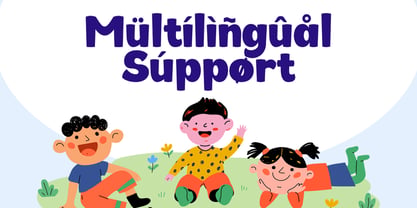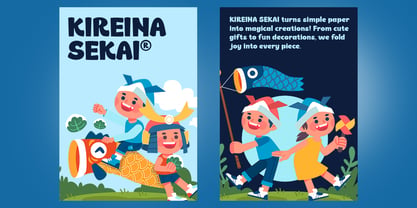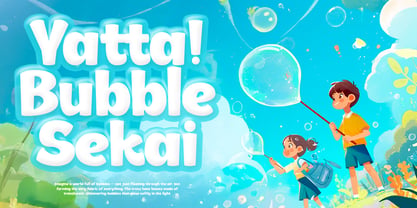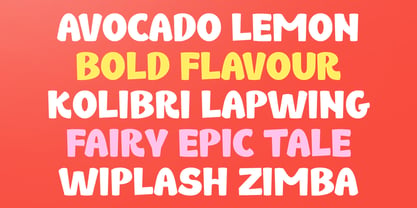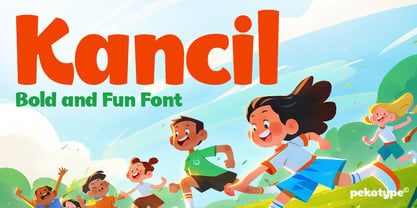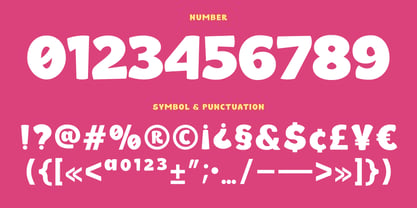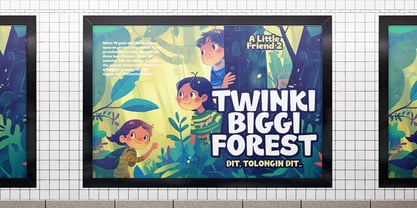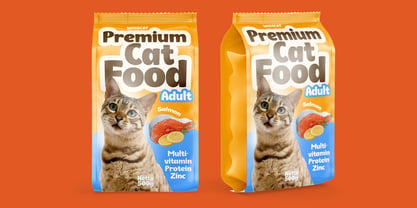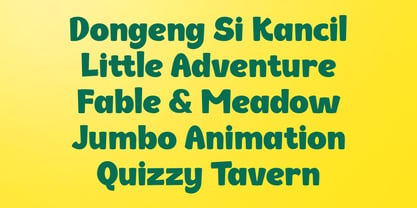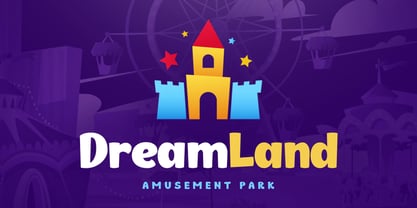
Kancil
by Pekotype
The Kancil Font Family was designed by Galang Bryan and published by Pekotype. Kancil contains 1 styles. More about this family
KANCIL is a bold and playful display font designed to add energy and personality to your designs. With its fun curves and modern style, it’s perfect for branding, logos, packaging, posters, children’s projects, social media content, and promotional materials. Easy to use and full of character, KANCIL helps create eye-catching designs that feel fresh, creative, and memorable.